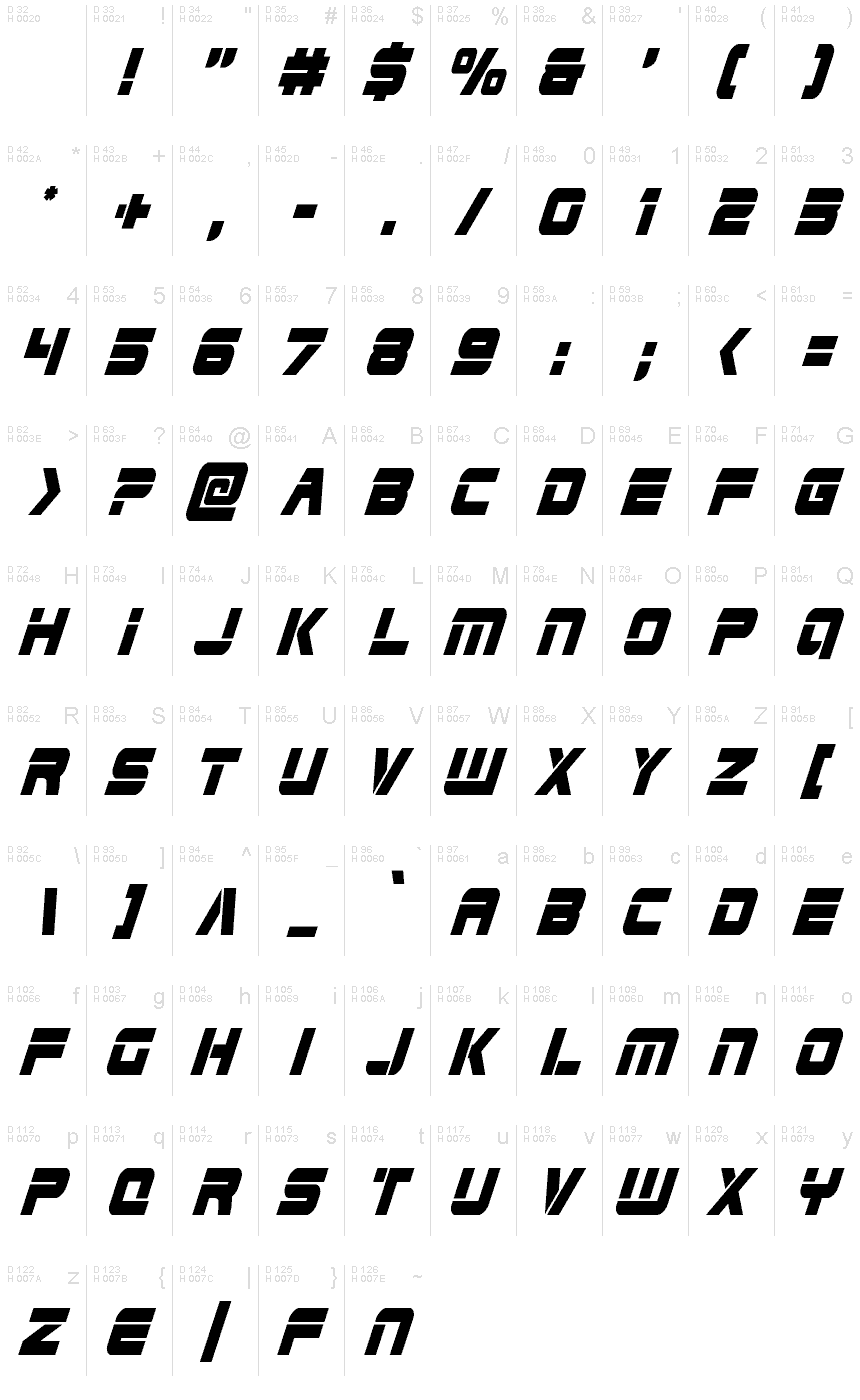
Edge Racer Condens Super-Ital
Edge Racer Condensed Super-Italic font is another marvel by Iconian Fonts, bringing a modern futuristic look to the table. The display font is marked by its sleek aggressive lines and angular elements giving it an overall sporty vibe. Designed with a condensed weight and super-italic style, Edge Racer stands out among monotonic fonts.
Contrary to its appearance at first glance, Edge racer can be used for multiple design purposes making it quite versatile. Web designers can employ it in page headers or posters while graphic designers use them in logos or branding projects for optimal results. Include the latter on packaging designs, T-shirt designs, digital artwork, typography art, business cards, signage designs, etc.